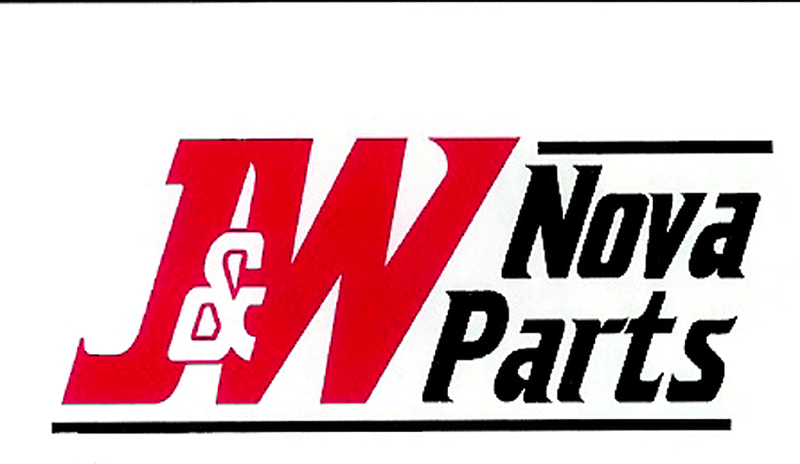
Is this a font? It wouldn't take long to vectorize, but just checking...
Thanks, Checkers. I have Seagull Heavy BT, but it is very different. I'll keep looking. Thanks again.
It looks to me to be one of the several weights of Crillee Italic that has been stepped on pretty harshly.